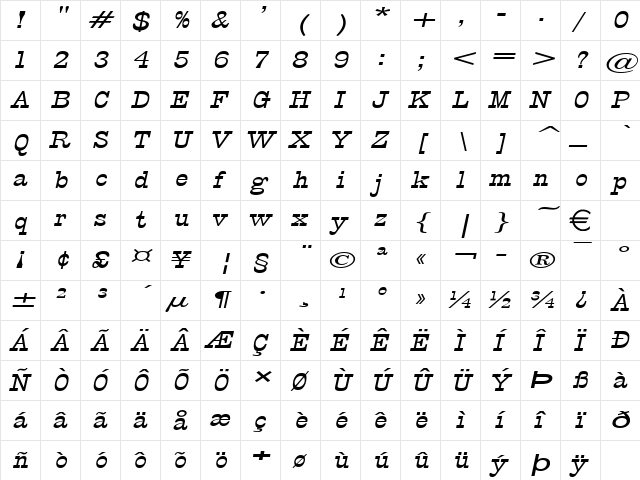
CircusWide Italic
Design Context for CircusWide Typeface
CircusWide takes a measured approach to typography — its balanced proportions and neutral character make it a reliable workhorse for both digital and print work. The slanted form adds forward momentum and visual energy.
Pro Tip: Try CircusWide for annotation and caption copy alongside an upright companion — the contrast in angle creates a dynamic but ordered typographic system.